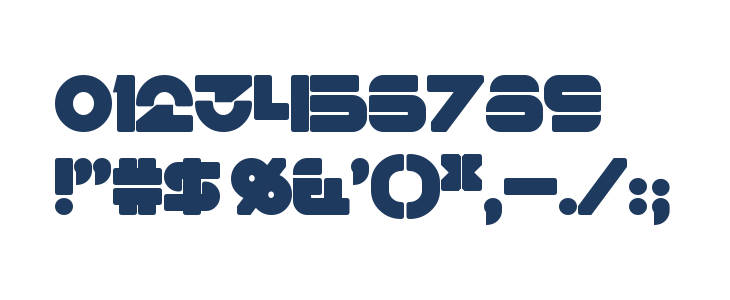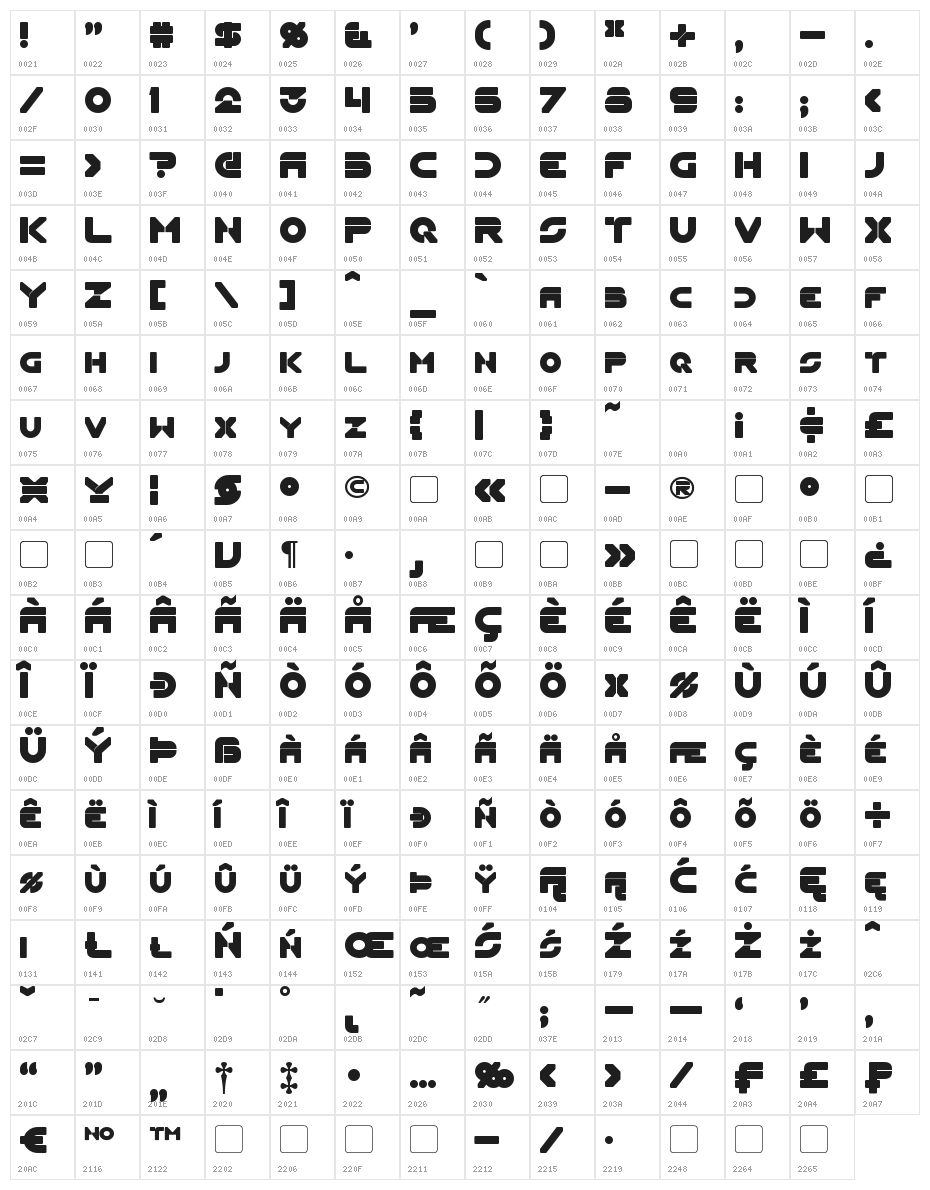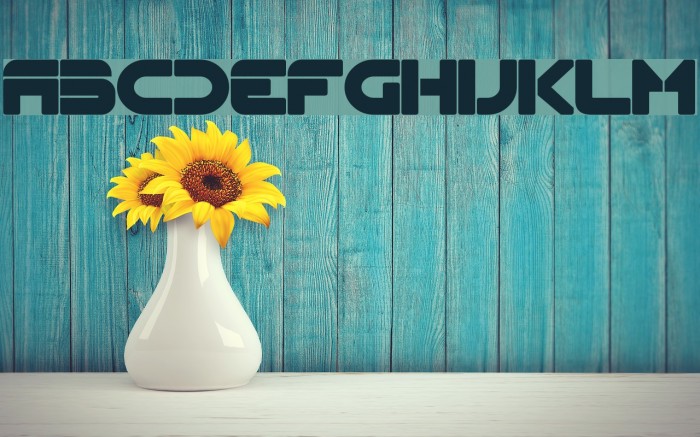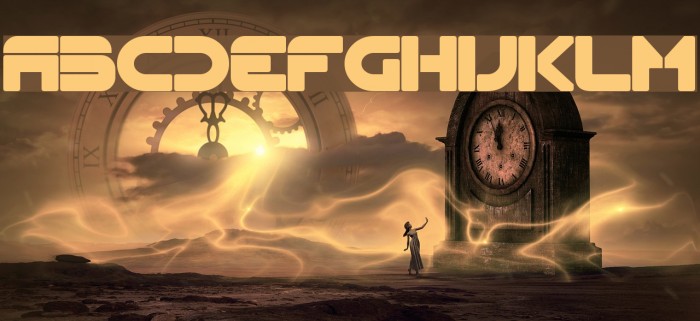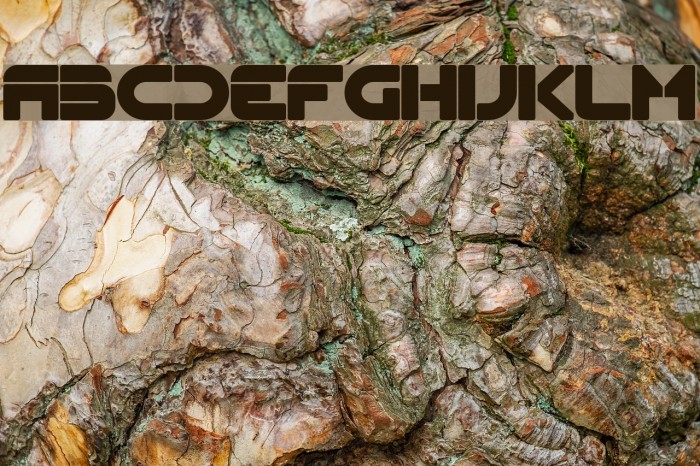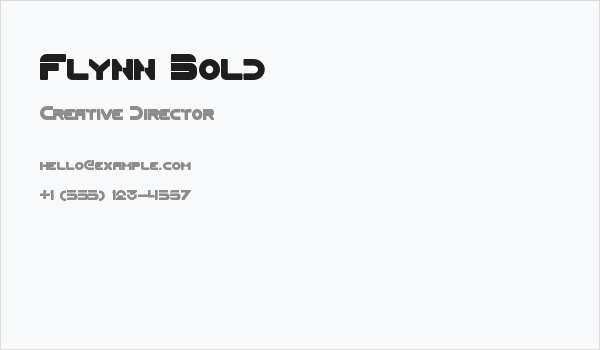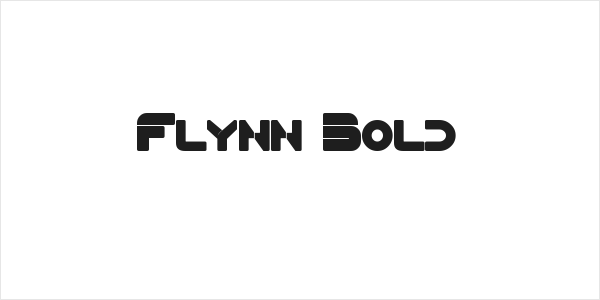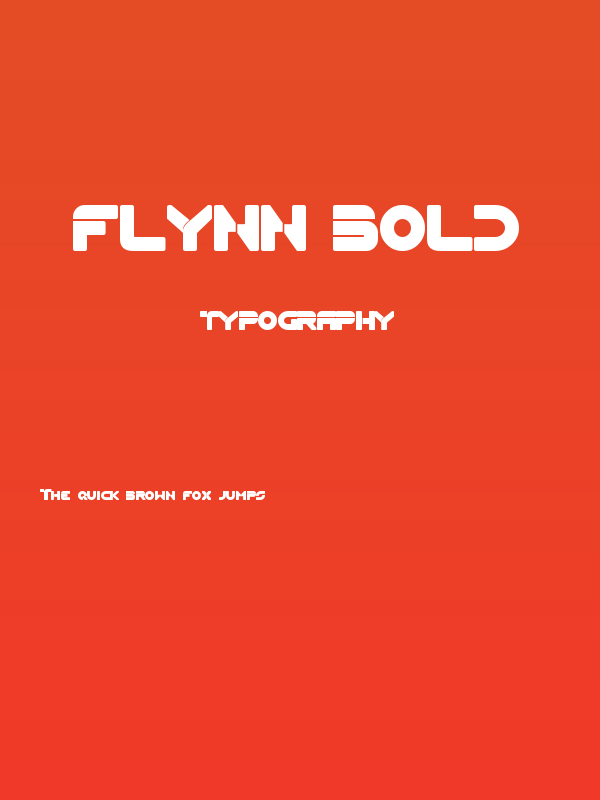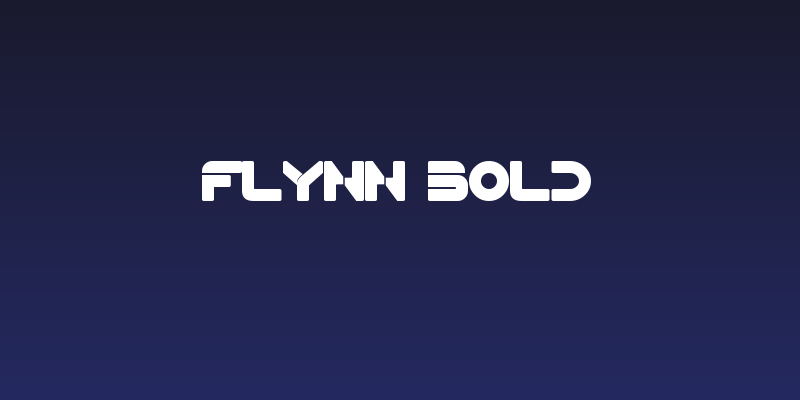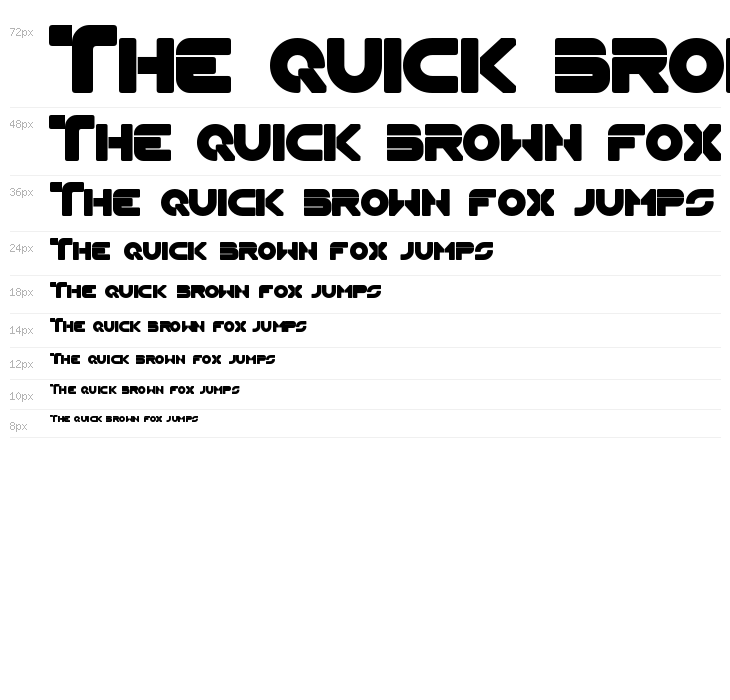
Flynn Bold Font
Flynn Bold Description
This font features a bold, geometric design with a futuristic and modern aesthetic. The characters are constructed with thick, uniform strokes and rounded edges, creating a cohesive and visually striking appearance. The uppercase letters are particularly distinctive, with a blocky and robust form that commands attention. The numerals and special characters maintain the same boldness and geometric style, ensuring consistency across all elements. The font's unique style makes it ideal for projects that require a strong visual impact.
| Proposed Projects | Ideal for branding, posters, headlines, and any project needing a strong visual impact. |